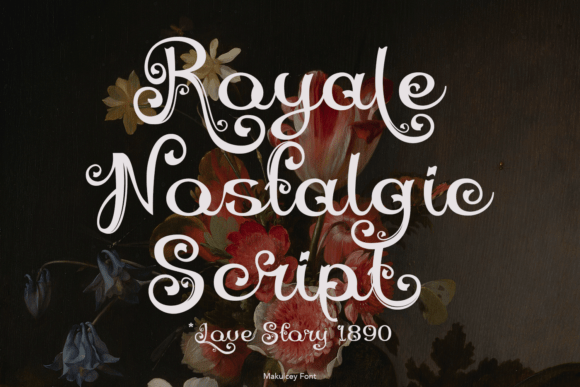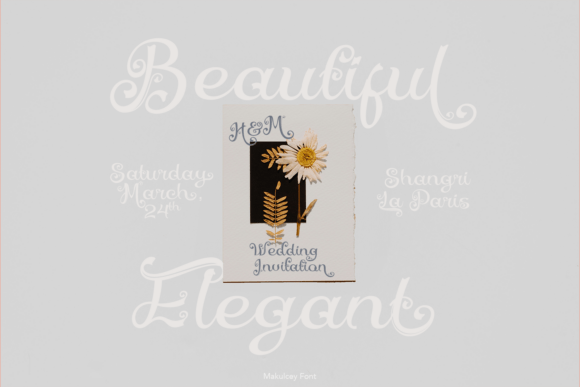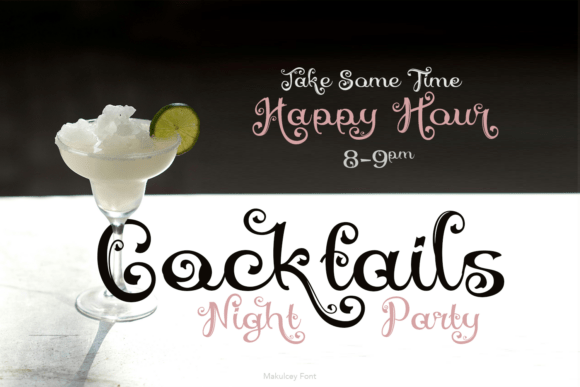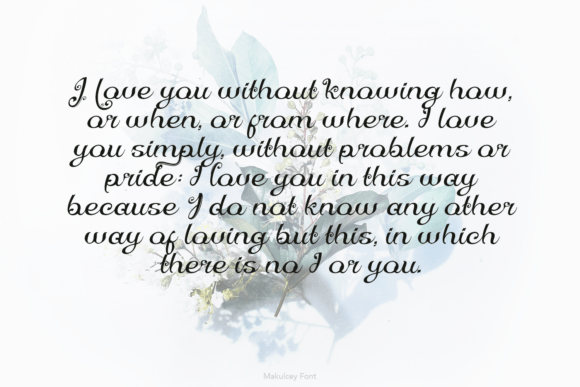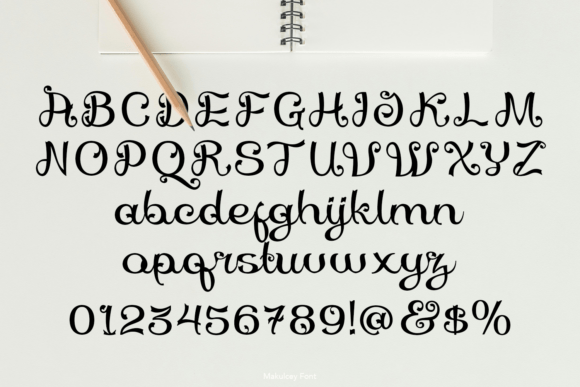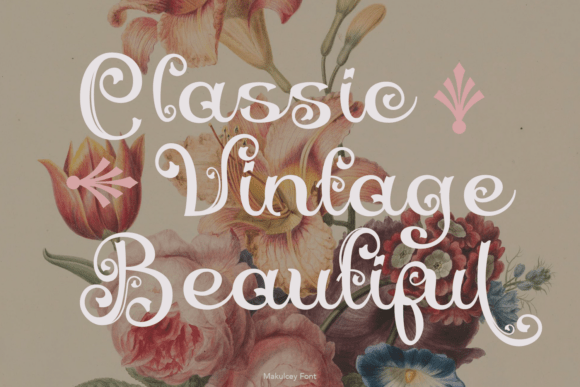
Introduction to Makulcey Font
Remember the moment when you stumble upon a font that perfectly captures the essence of your creative project? For designers, it’s a moment of pure bliss. And, if you’re looking for that special font that adds a touch of modern vintage charm to your designs, look no further than the Makulcey Font.
This high-quality, free download font is a game-changer for any design project. With its curly style and numerous alternatives and ligatures, Makulcey Font is perfect for creating eye-catching designs that stand out from the crowd. Whether you’re designing book covers, product labels, logos, badges, or even drink bottles, this versatile font is sure to be a valuable addition to your design resource.
Key Features of Makulcey Font
- High-quality design resource ideal for creative projects, offering a unique and stylish touch.
- Unique characteristics, such as elegant lines and sophisticated typography, make it a standout choice for designers.
- Perfect for use in various design projects, including logos, graphics, and digital art, due to its versatility and high-quality design.
Honest Review: Makulcey Font
As a designer, I’m always on the lookout for high-quality design resources to elevate my creative projects. Recently, I came across the Makulcey Font, and I was excited to give it a try.
What works well is the Makulcey Font’s unique and elegant design. It’s perfect for a variety of projects, from logos to typography-based designs. The font is available for free download, which is a huge plus for designers working on a budget.
- ✨ Unique and elegant design
- ✨ High-quality font suitable for various design projects
- ✨ Transparent background for easy customization
However, I did notice a few limitations. The Makulcey Font is only available in a few styles, which may not be ideal for designers who prefer a wider range of font options.
- ⚠️ Limited font styles available
- ⚠️ May not be suitable for designers who require a wide range of font options
Overall, I was impressed with the Makulcey Font’s design and features. While it may have some limitations, it’s a great resource for designers working on a budget or looking for a unique and elegant font for their creative projects.
How to Use Makulcey Font
Makulcey Font is a high-quality design resource ideal for various creative projects. Its unique and stylish design makes it perfect for a wide range of applications, from branding to digital art.
Tips for Getting the Most Out of Makulcey Font
Here are some tips to help you get the most out of Makulcey Font:
- Use the font with a transparent background to create a stylish and modern design.
- Experiment with different font sizes and styles to achieve the desired look.
- Combine Makulcey Font with other design elements to create a unique and eye-catching design.
Makulcey Font is ideal for various creative projects, including:
- Digital art and graphics
- Print design and publishing
Alternatives to Makulcey Font
Lato Font is a modern sans-serif font that is highly versatile and suitable for a variety of creative projects, including logos, branding, and web design. It comes in multiple weights and styles, making it a great design resource for designers.
Lato Font is a great alternative to Makulcey Font as it offers a similar clean and minimalist aesthetic, but with a more open and airy feel. It’s ideal for use on digital screens and is highly legible on high-quality prints.
Montserrat Font is a geometric sans-serif font that is perfect for creating a modern and urban feel in your design. It’s a great choice for designers who want to add a touch of sophistication to their creative project.